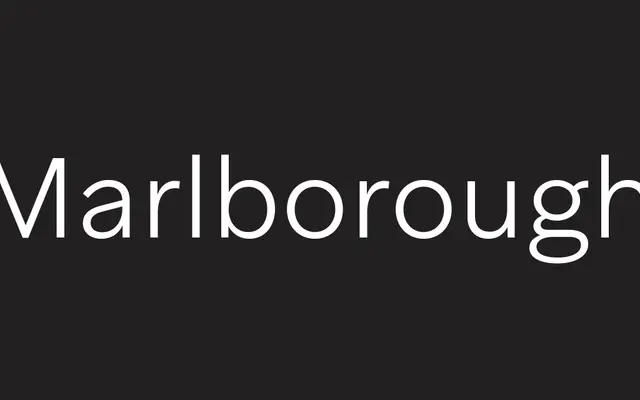
Aribau Grotesk
A hybrid grotesque that blends American gothic traits with geometric details across eight weights and matching italics, including variable font support.
Drawing on early 20th-century American gothic conventions, Aribau Grotesk pairs open counters and a double-storey 'g' with the cleaner, more contemporary touches of geometric design: circular dots and clean-shaped figures. The family runs across eight weights from Thin to Black with matching italics, totalling 18 static styles, and variable Roman and Italic fonts are included with the full family purchase. Its generous proportions and low contrast make it a practical choice for editorial and branding work where a grounded but modern grotesque is needed.
A hybrid of geometric and grotesque traditions, combining low contrast and generous proportions with American gothic traits such as open counters and a double-storey 'g', placing it firmly in the grotesque subcategory.